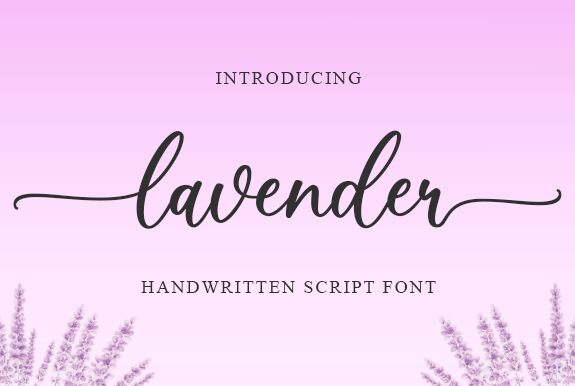
Lavender
Lavender is a charming semi-light handwritten font designed by Graphix Line Studio. Its delicate curves and elegant strokes make it perfect for a variety of projects including wedding invitations, greeting cards, and logos. The unique style of Lavender creates a romantic and whimsical atmosphere that will captivate your audience. Use this font to add a touch of sophistication to your next project, whether it's a book cover or social media graphics. With Lavender, you can express your creativity and convey your message in an unforgettable way.